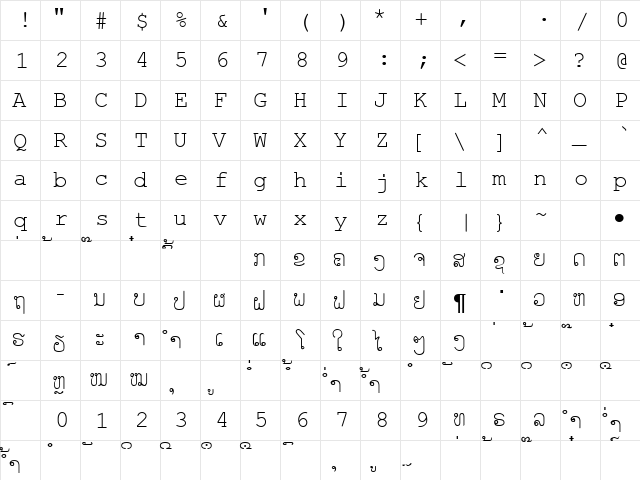
Alice4 Lao Regular
Design Context for Alice4 Lao Typeface
Alice4 Lao offers clean, dependable letterforms without strong stylistic allegiance, making it a practical choice for designers who need flexibility.